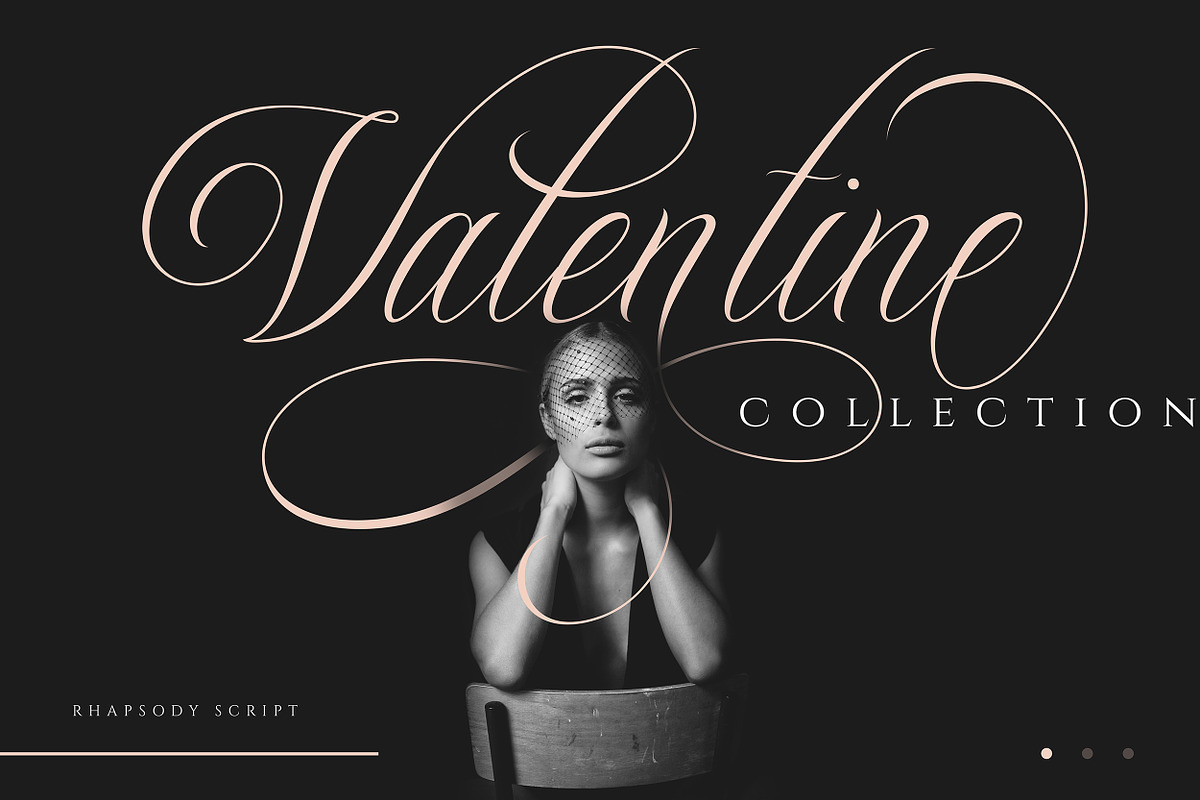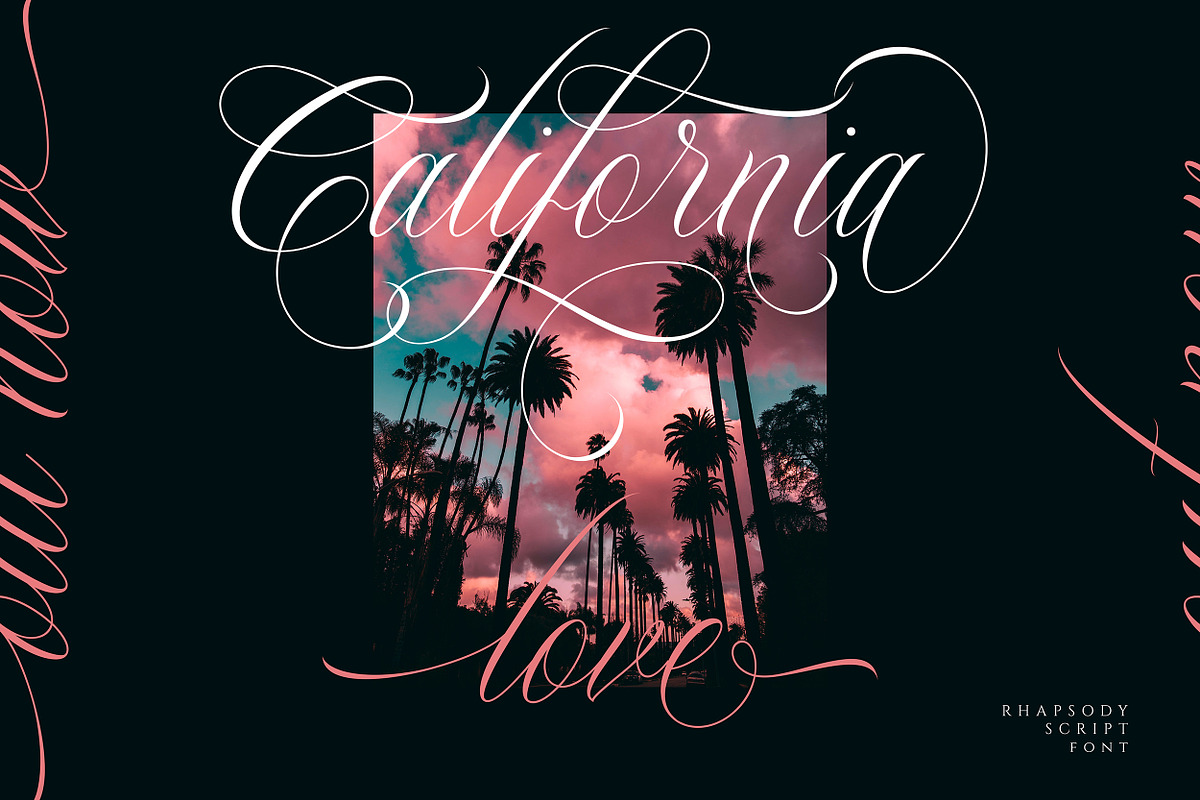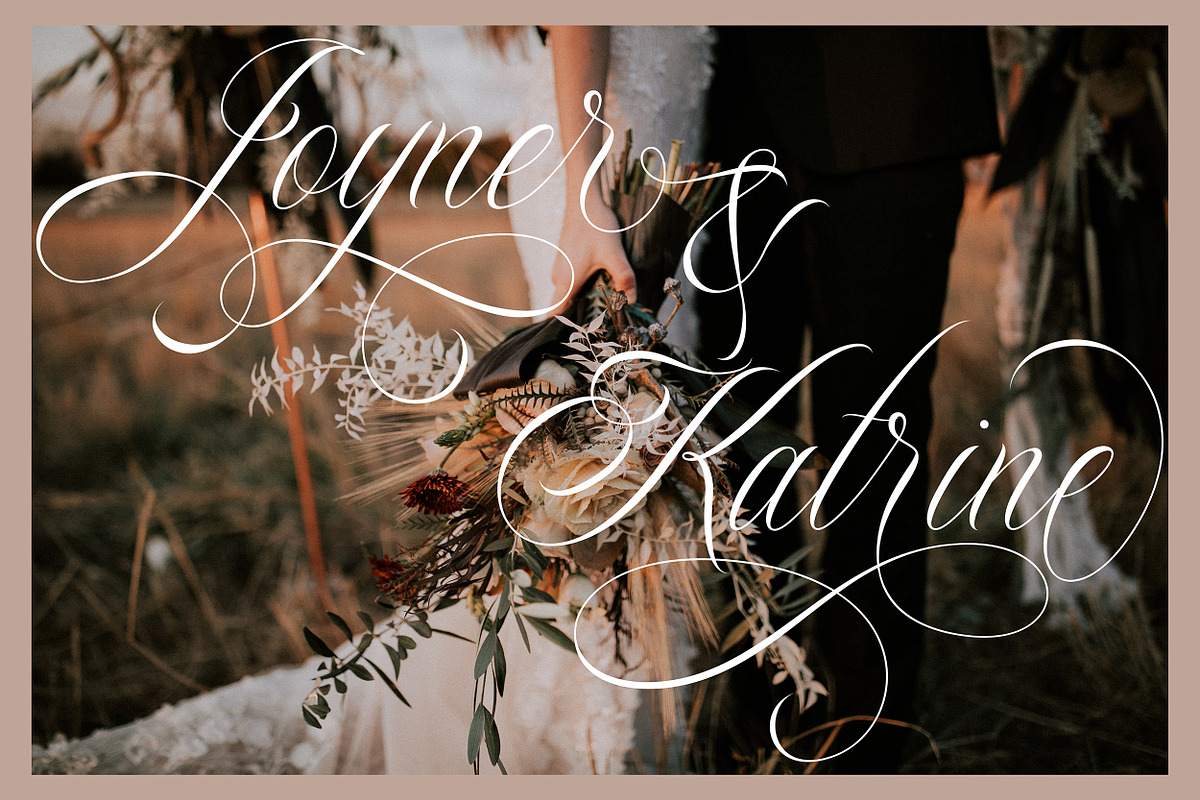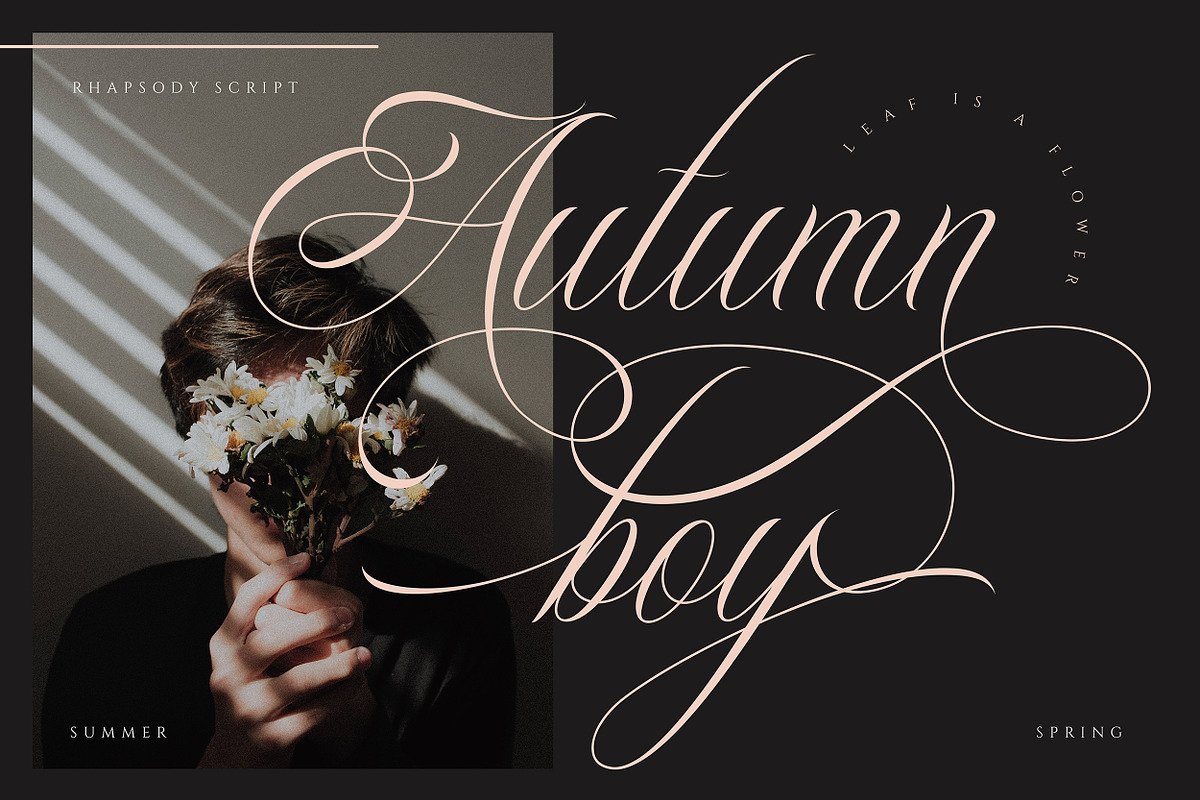
Rhapsody Font
Rhapsody is script calligraphy font that exudes elegance and sophistication that you can use to make a design for logo branding, poster headline, magazines, book titles, business cards, beautiful fashion designs, advertisements, product designs, wedding invitation, signature or handwritten quote.
The font includes uppercase and lowercase letters, numerals, a large range of punctuation and ligatures. All lowercase letters include ending swashes and alternative font.
Rhapsody Calligraphy Font